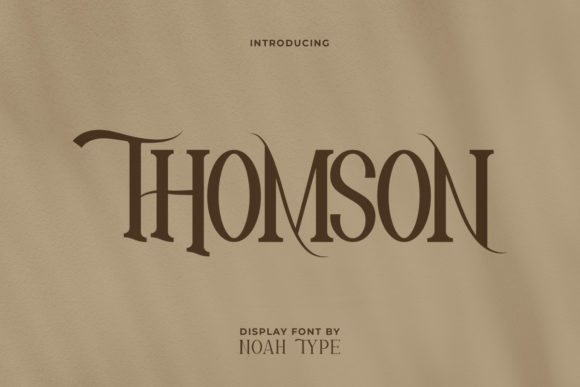
**Captivating Serif Font for Unforgettable Impressions**
Introducing Thomson, a modern serif font that captivates with its timeless elegance and authentic flair. This exceptional font, inspired by the allure of classic lettering posters, exudes a personal touch that breathes life into your creative endeavors.
Thomson's meticulous detailing and authentic ligatures dance across your designs, leaving an unforgettable mark on the hearts of your audience. Its versatility knows no bounds, seamlessly complementing wedding invitations, branding projects, artist's portfolios, makeup packaging, outdoor adventures, and more.
With Thomson, headlines take on a life of their own, drawing attention with their bold presence. Logos become emblems of sophistication, reflecting the depth of your brand's story. Posters come alive with compelling titles that evoke emotions and inspire action.
Embrace Thomson's PUA-encoded nature, granting you effortless access to a myriad of glyphs and swashes. Unleash your creativity, experiment with endless possibilities, and let Thomson guide you towards unforgettable designs.